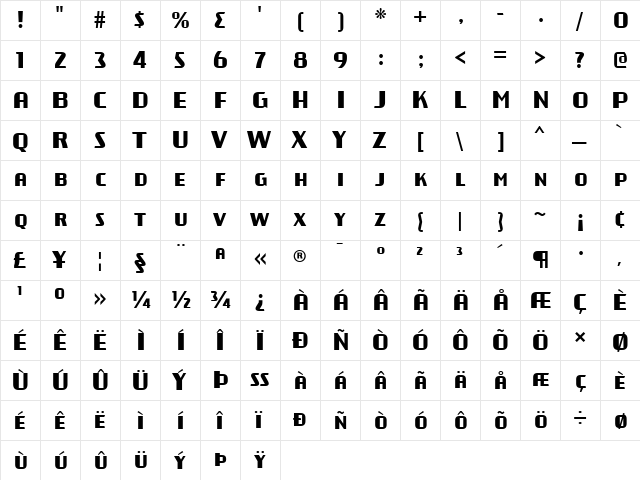
Marianas Regular
Design Context for Marianas Typeface
Marianas is a composed and adaptable typeface that performs quietly and consistently across a wide range of design contexts.
Pro Tip: Use Marianas in both headline and body roles to test its range before committing to a single application.